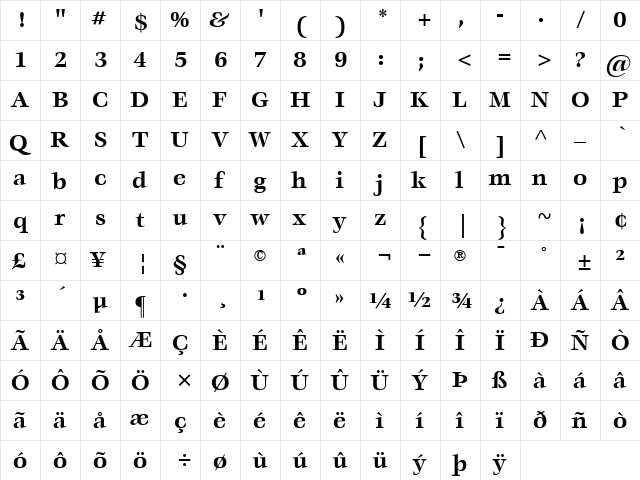
ITCVeljovic Bold
Design Context for ITCVeljovic Typeface
ITCVeljovic offers clean, dependable letterforms without strong stylistic allegiance, making it a practical choice for designers who need flexibility. The heavy weight commands attention and anchors typographic hierarchies.
Pro Tip: Use ITCVeljovic in both headline and body roles to test its range before committing to a single application.